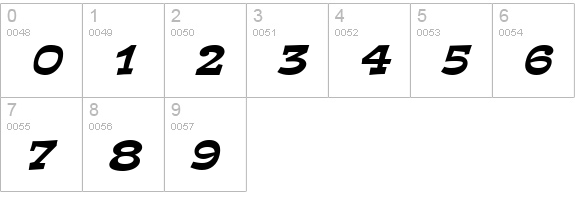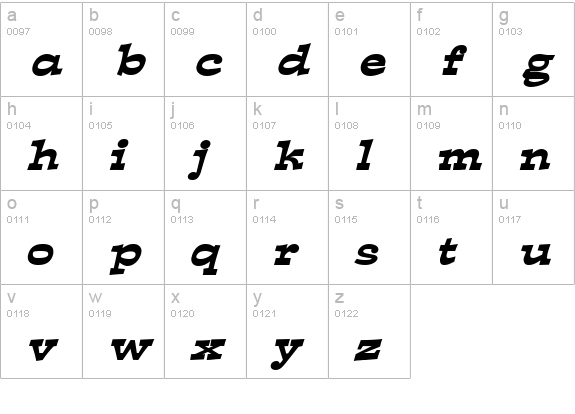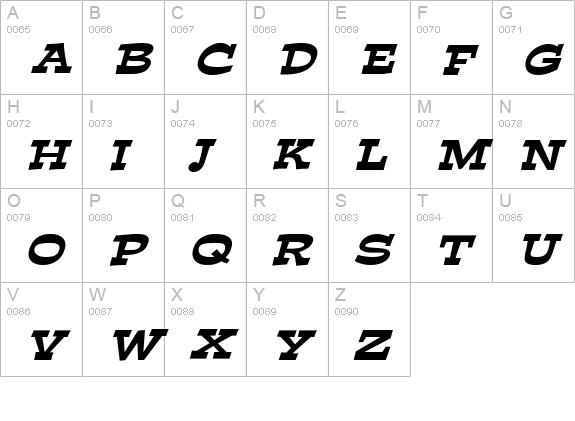
Expose Wide BoldItalic is a distinctive, extended-width variant in the Expose typeface family \xE2\x80\x94 well suited to design and typography projects.
Introducing Expose Wide BoldItalic font, a sleek and modern typeface that exudes sophistication and style. With its bold yet elegant design, this font is perfect for adding a touch of flair to your projects. The italicized characters give a dynamic and unique look to any text, making it stand out from the crowd. And the best part? Expose Wide BoldItalic font is completely free for personal and commercial use! You can easily download this font at FontsMarket.com, where you'll find a wide selection of high-quality fonts to elevate your designs. Whether you're working on a branding project, website design, or any other creative endeavor, Expose Wide BoldItalic font is sure to make a statement. Don't miss out on this opportunity to enhance your work with this stylish and versatile font.